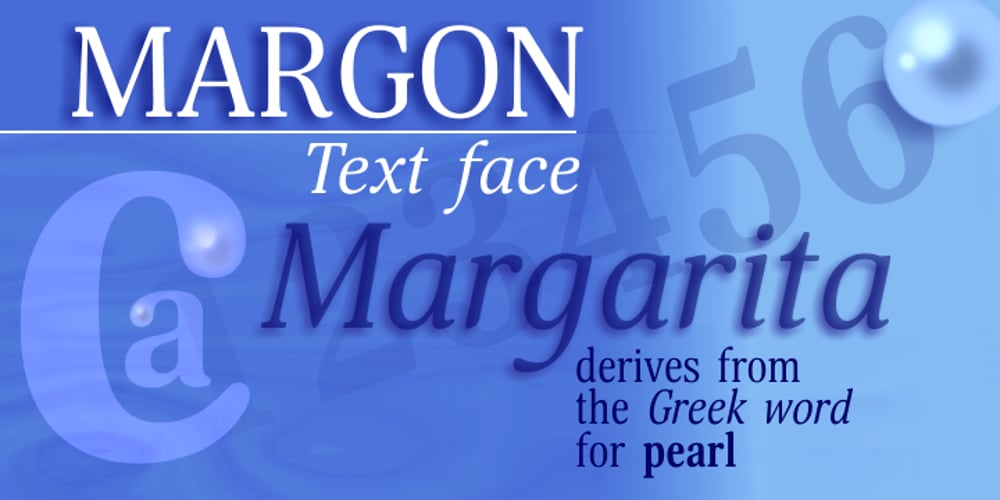
Margon Font Family was designed by Natalia Vasilyeva and published by ParaType. Margon contains 18 styles and family package options. Margon is a serif font family with a temperate design — small serifs, moderate contrast, tiny roundings on the corners make it calm and serene. The Margon font family consists of 18 members divided into 4 groups of different proportions marked by indexes 360, 380, 400, 430. These values correspond to densities of sets — 360 is the widest style, 430 is the most narrow one. The peculiarity of Margon family is a rather small difference in proportions of characters between neighbor groups, it’s less than 10%. Such tiny step gives possibility to select the font that gives the best result in combination of capacity and readability. Margon can be used in book, magazine and newspaper design.